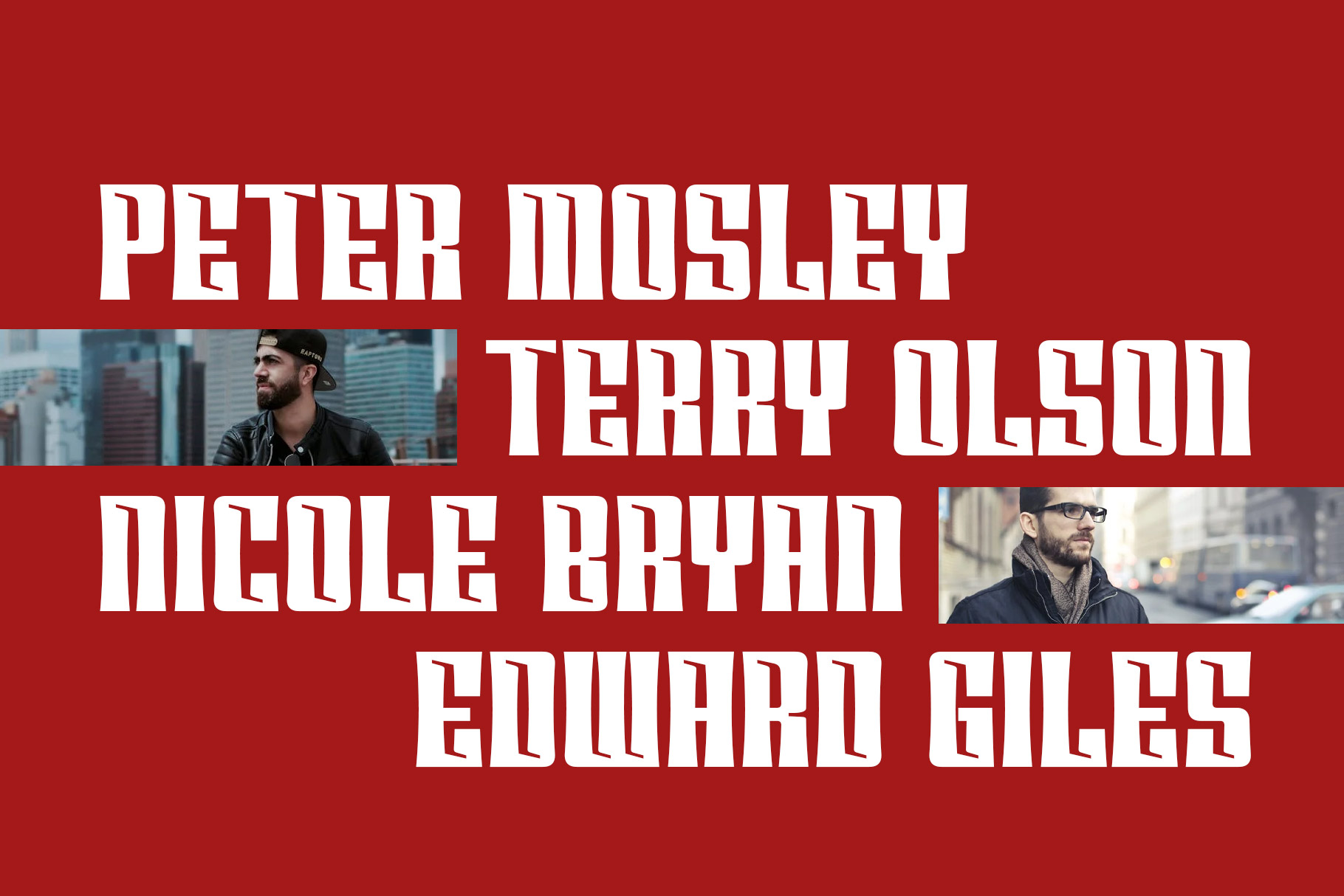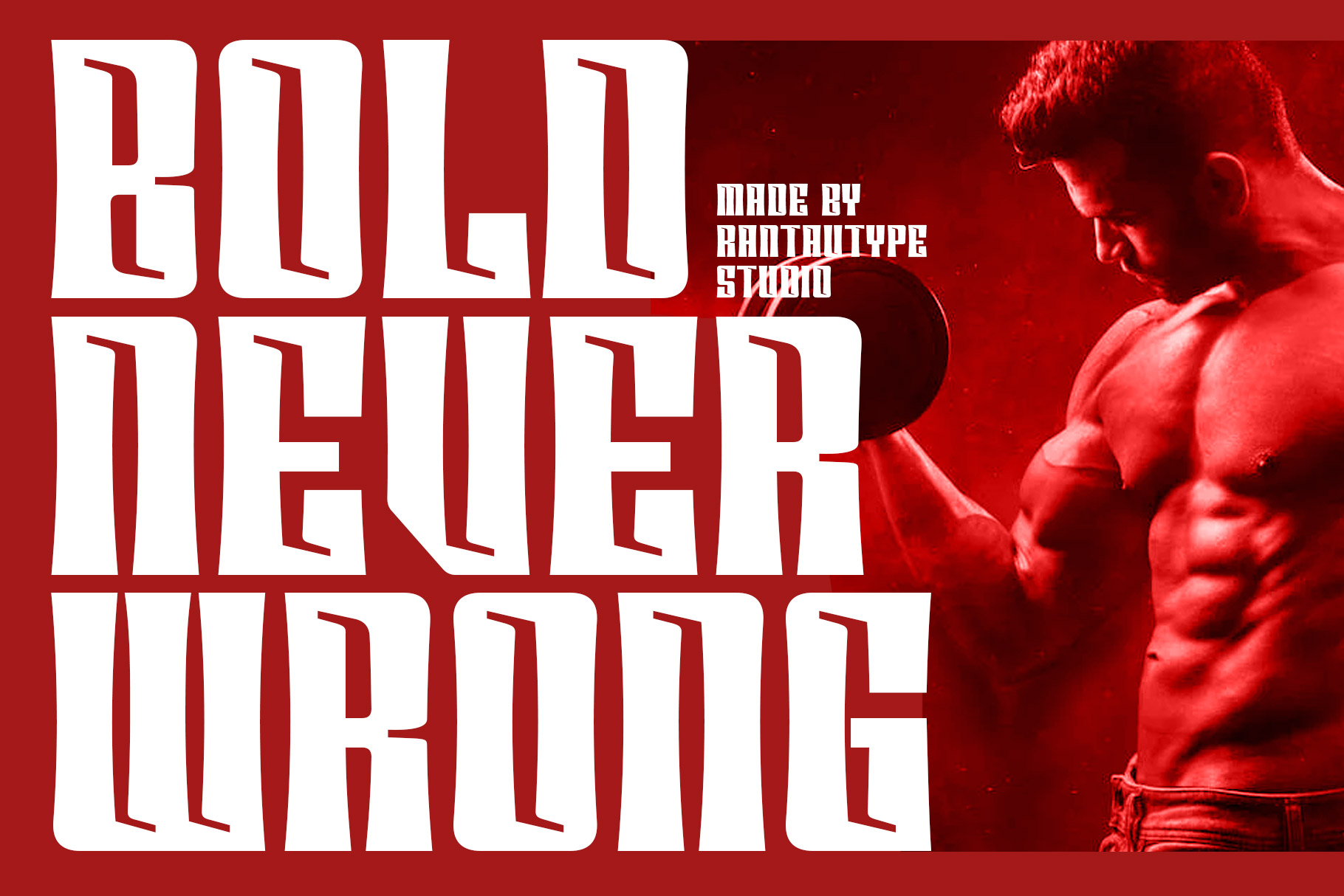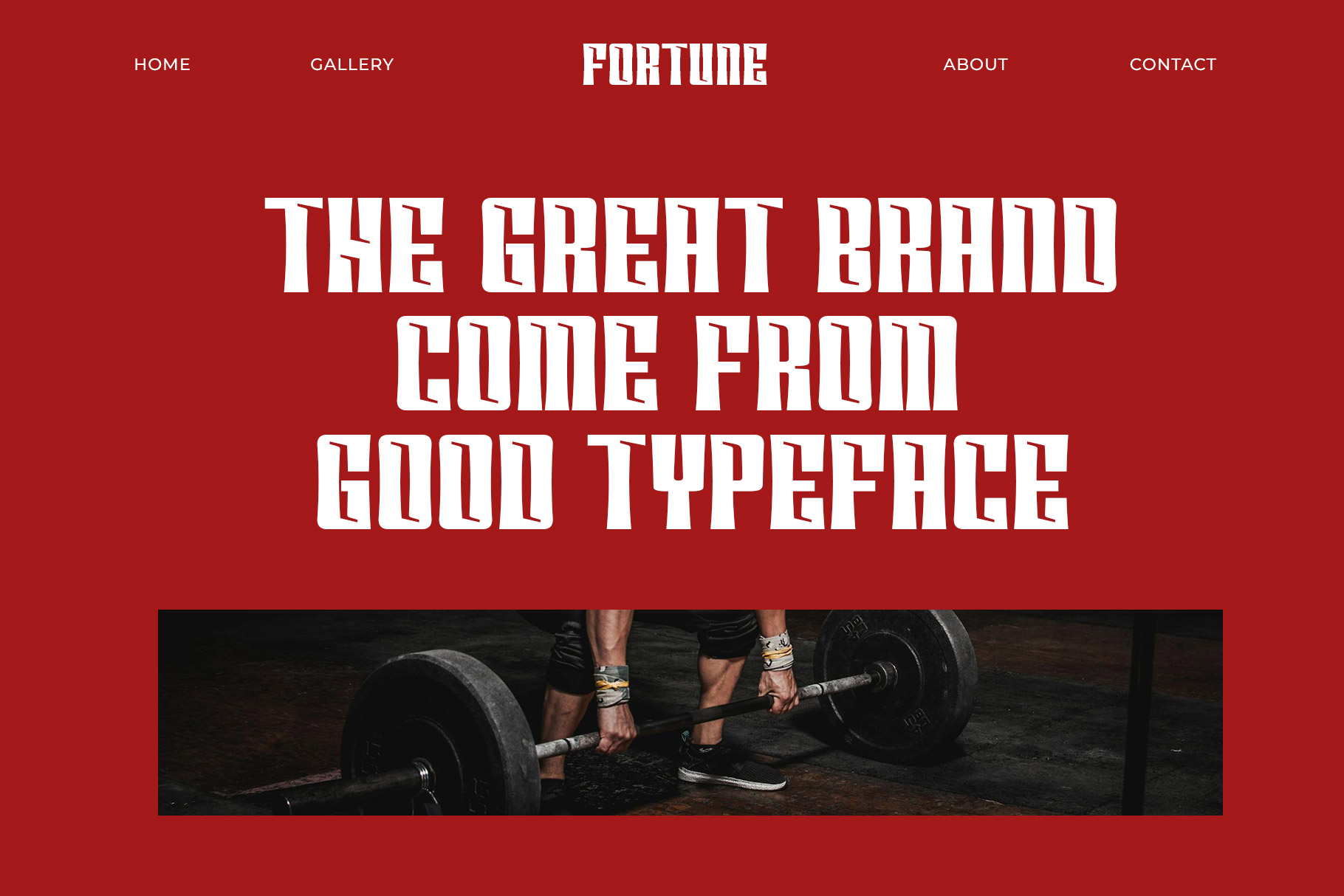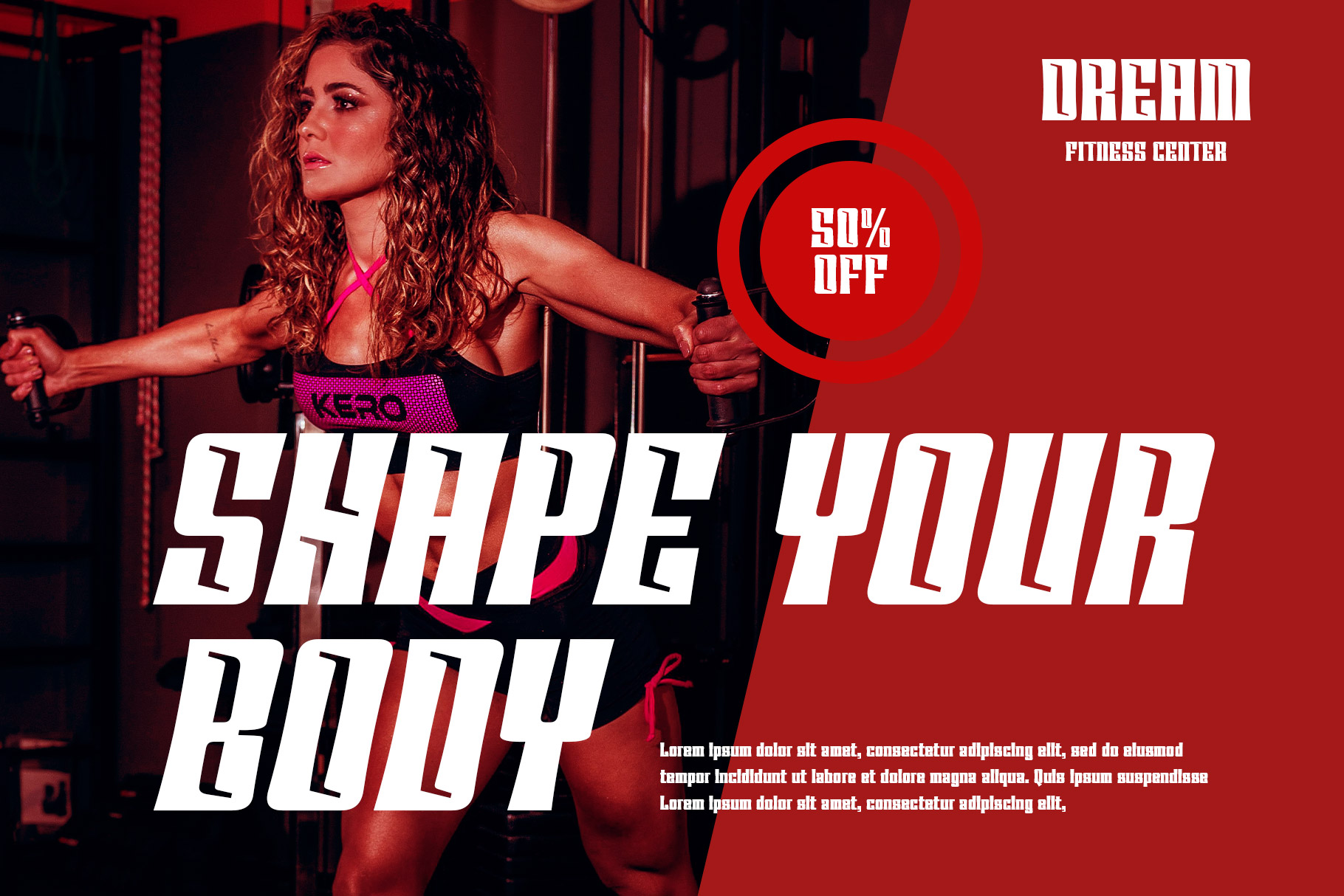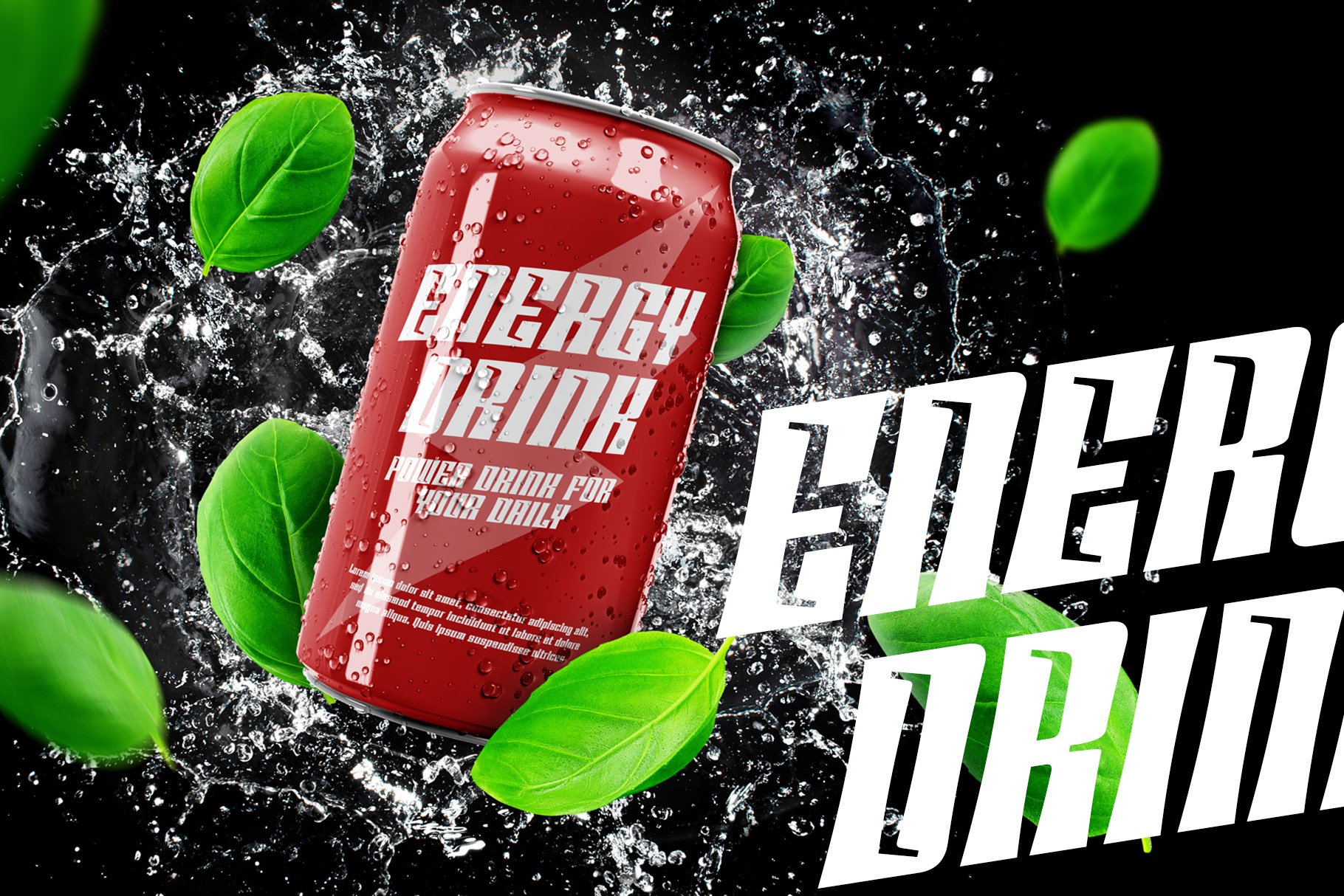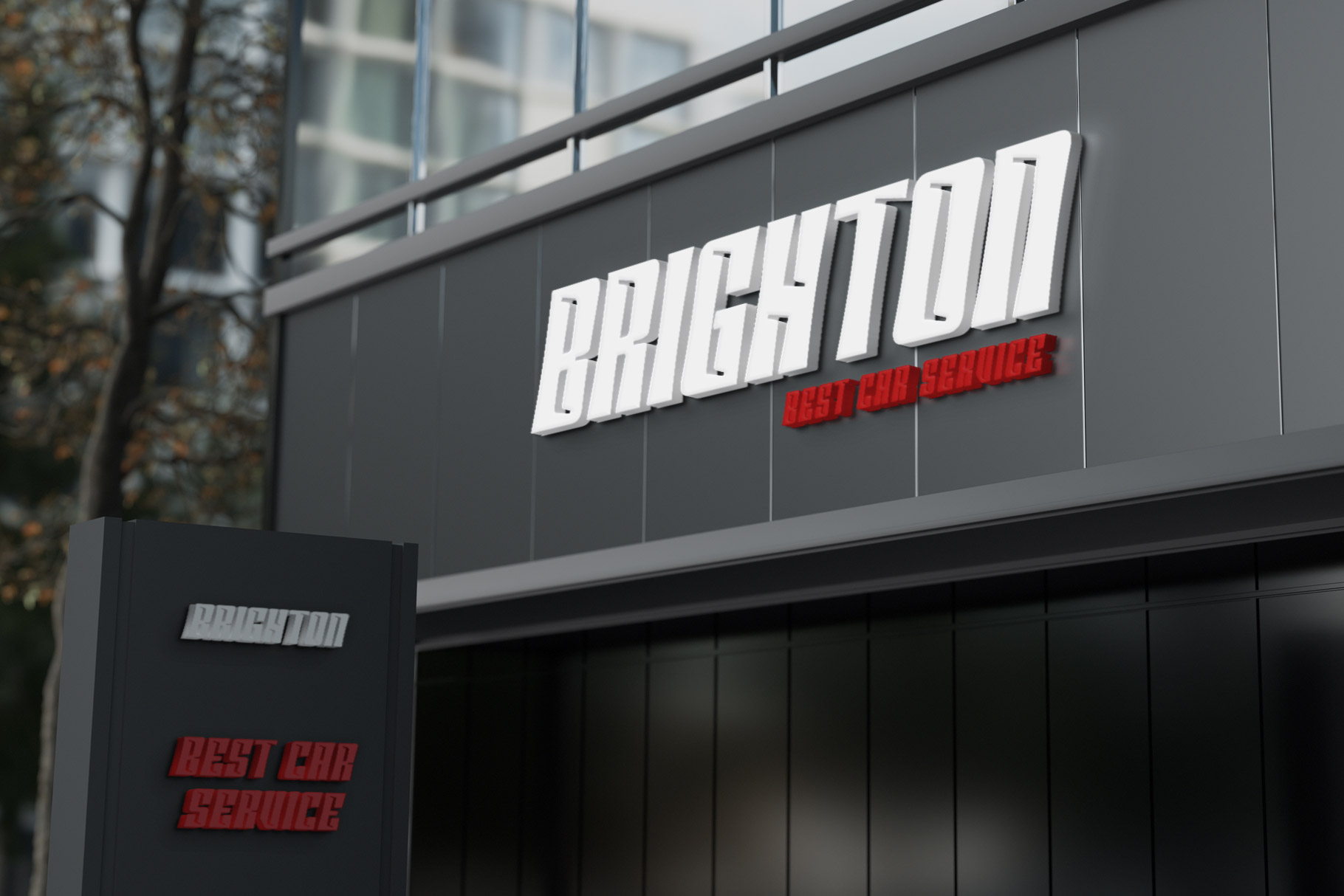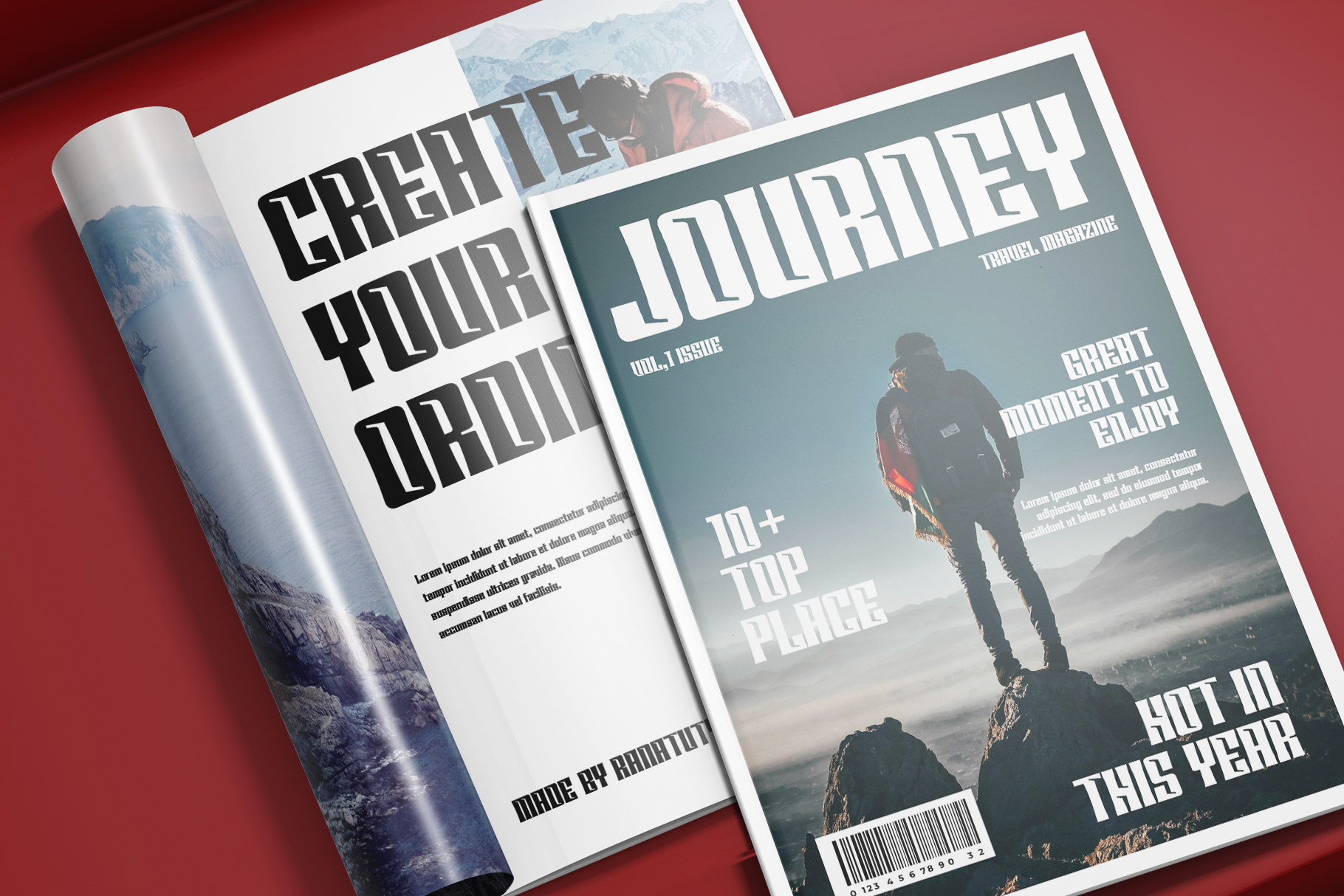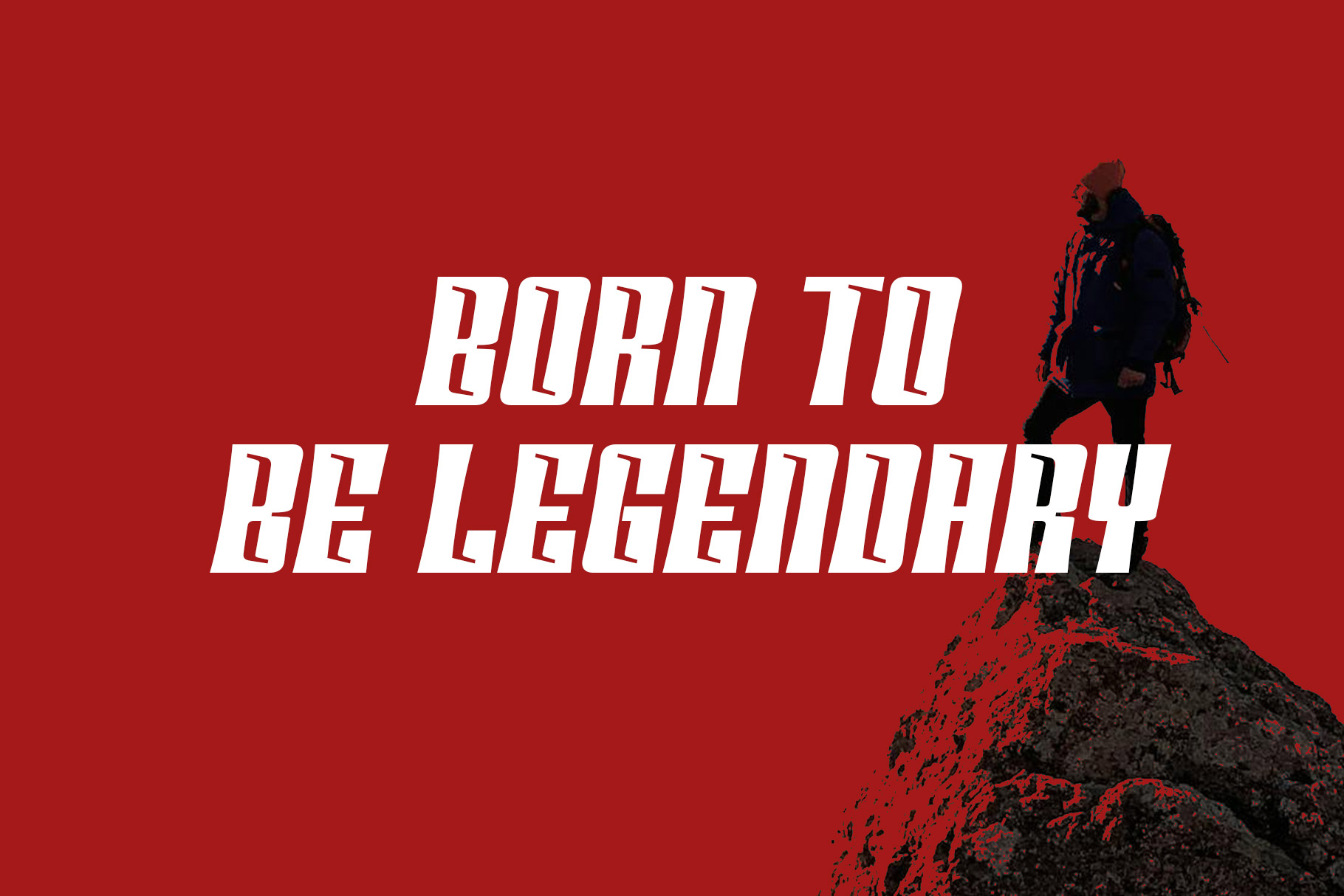
Ramder Bold Strong Font
Ramder is bold aesthetic font with strong character. Ramder bring typography with nice touch in every character. Ramder is a perfectly choice for any creative endeavor, chic, lifestyle design such as logos, advertisements, stationery, branding project, display and magazine, invitation, corporate brand, product design, label, business project and many other project with modern touch.